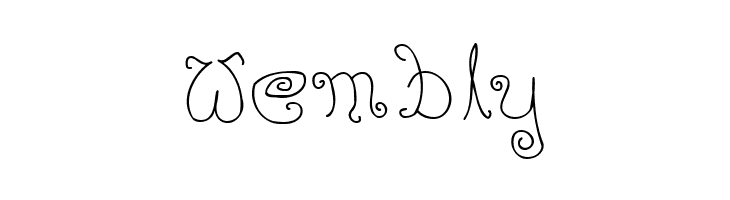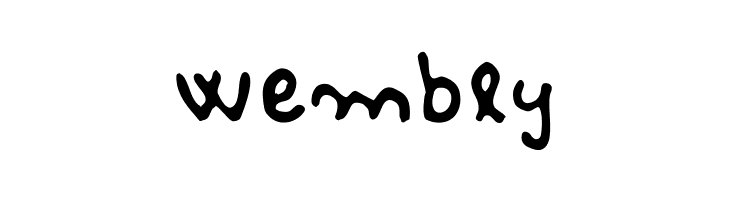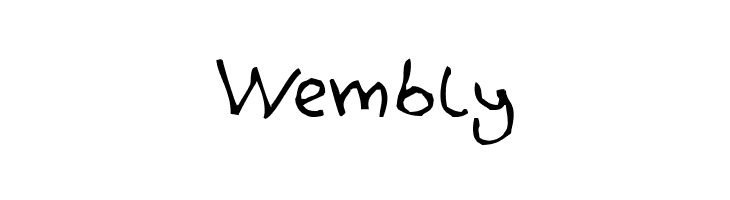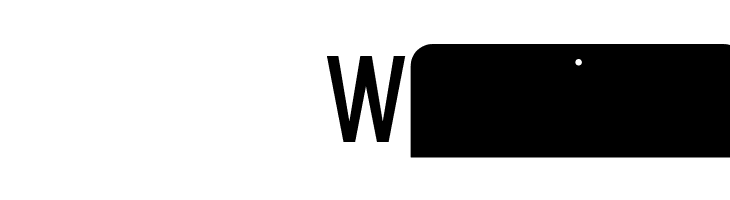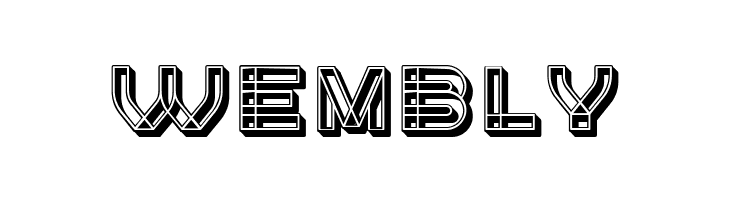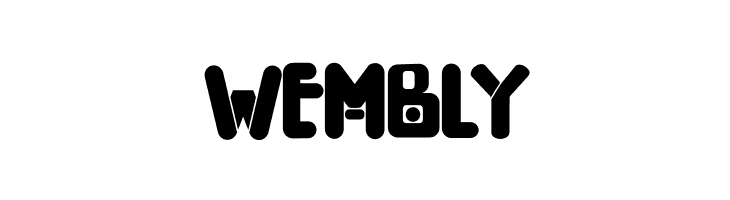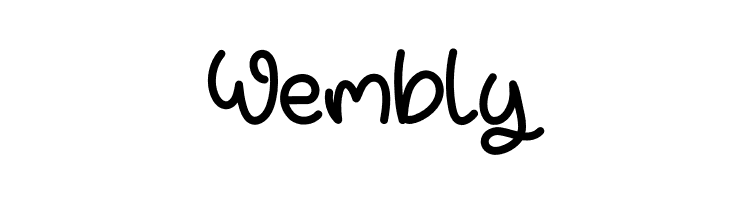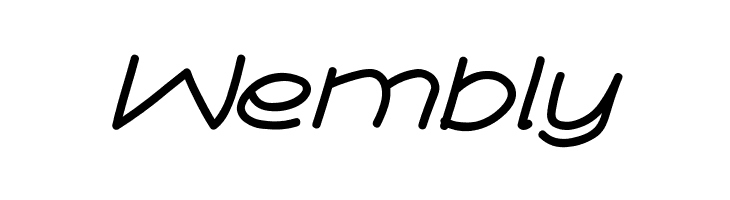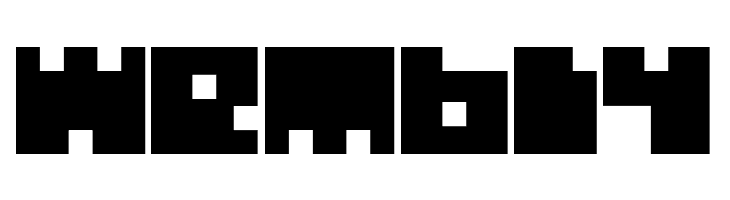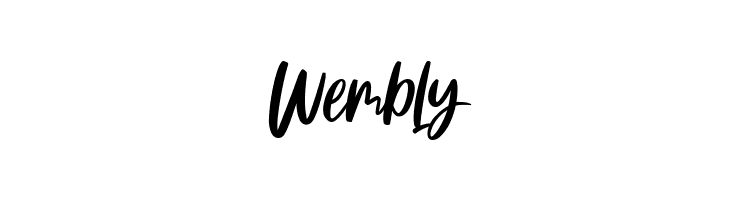
A playful, hand-drawn font with thin, flowing lines and a whimsical style.
A flowing, cursive italic font with interconnected letters and a delicate, elegant style.
A flowing, elegant script font with a handwritten appearance.
A playful, hand-drawn font with rounded, bold characters.
A bold, handwritten-style font with dynamic, fluid strokes and medium contrast.
A bold, decorative font with abstract distortions and artistic cutouts.
A bold, geometric font with angular shapes and rounded edges, ideal for modern designs.
A playful, handwritten-style font with consistent marker-like strokes.
A dynamic, handwritten font with expressive, brush-like strokes.
A bold, brush script font with dynamic, sweeping strokes and a hand-painted appearance.
A playful, hand-drawn outlined font with a quirky, cartoonish style.
A pixelated, retro-style font with a digital, blocky appearance.
A bold, geometric font with a pixelated, digital appearance.
A whimsical, hand-drawn style font with playful, irregular strokes.
A bold, geometric font with a blocky, modern design.
A playful, casual handwritten font with a quirky and dynamic style.
A playful, hand-drawn font with bold, rounded strokes and a whimsical style.
An elegant, flowing script font with thin, elongated strokes and graceful curves.
A playful, handwritten font with rounded edges and decorative elements.
A bold, decorative font with a layered, three-dimensional effect.
A playful, handwritten font with rounded, bubbly characters.
A playful, bold, hand-drawn font with a whimsical and friendly style.
A bold, dynamic script font with expressive, flowing characters.
A bold, energetic script font with a dynamic, handwritten style.
A bold, geometric font with playful and rounded characters.
A bold, playful font with unique curves and straight lines.
A playful, bold font with quirky, rounded characters and a cartoon-like style.
A bold, playful font with a distinctive shadow effect and whimsical style.
A bold, geometric font with a vintage yet modern appeal.
A bold, modern sans-serif font with clean lines and uniform spacing.
A bold, modern sans-serif font with geometric structure and slight condensation.
A playful, hand-drawn font with thin, whimsical strokes.
A playful, bold handwritten font with a childlike charm.
A playful, handwritten-style font with irregular, whimsical strokes.
A whimsical, curly font with playful loops and swirls.